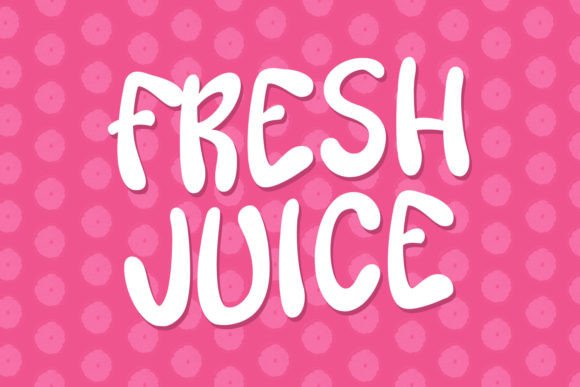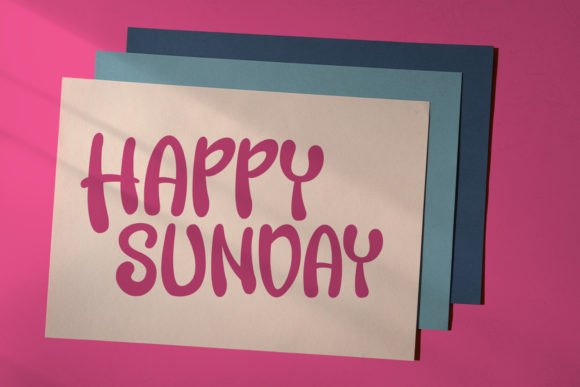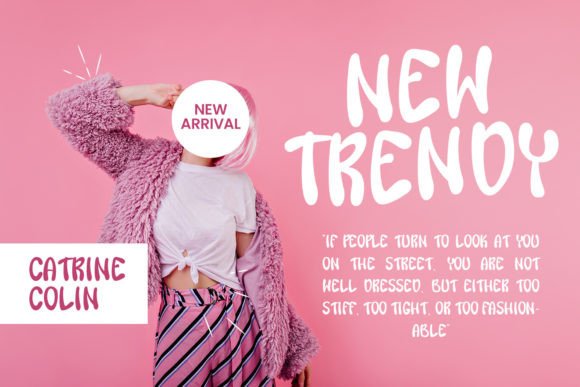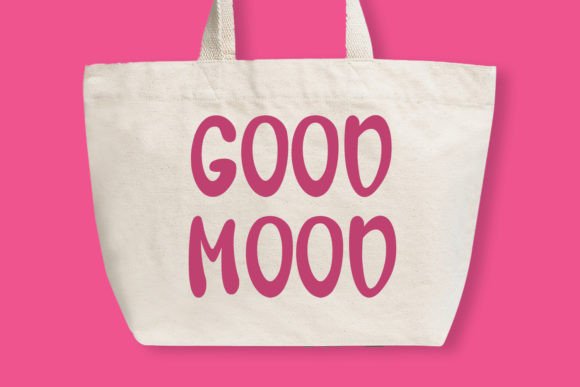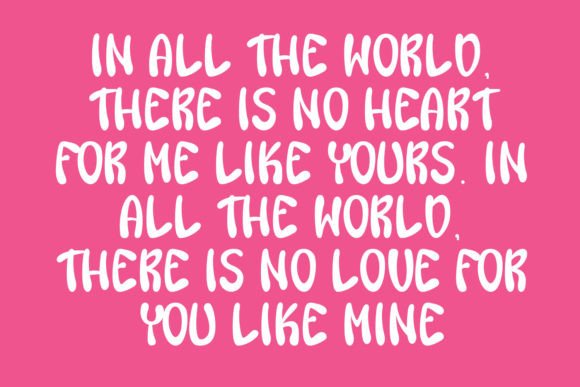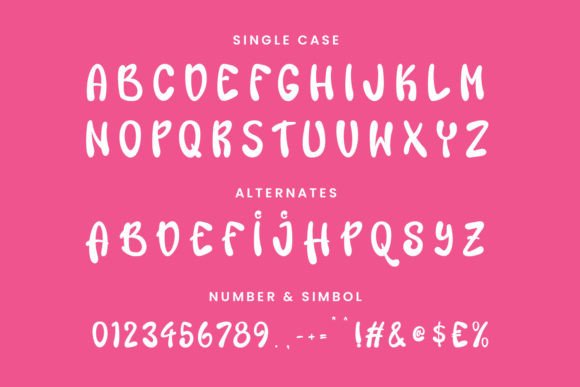
Introduction to Juicy Sunday Font Font
Fonts play a crucial role in design, and the Juicy Sunday Font font is a typeface that brings both character and versatility to any project. Whether you’re working on a branding project, a website, or a print design, the Juicy Sunday Font font offers a unique style that can elevate your work.
Juicy Sunday quirky handwritten font.
Bold contrast stroke, fun character with a bt of ligatures and alternates To give you an extra creative work.
Key Features of Juicy Sunday Font Font
Why Choose Juicy Sunday Font Font?
The Juicy Sunday Font font is more than just a typeface – it’s a design tool that helps you communicate your message with style and clarity. Its unique character set and versatile design make it suitable for a wide range of applications, from elegant invitations to bold headlines.
With its carefully crafted letterforms and balanced proportions, the Juicy Sunday Font font ensures readability and visual appeal across all mediums.
What makes Juicy Sunday Font font special?
The Juicy Sunday Font font stands out with its unique design, exceptional readability, and versatility across various design applications.